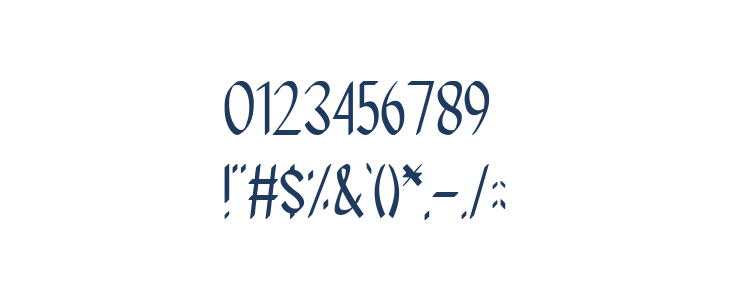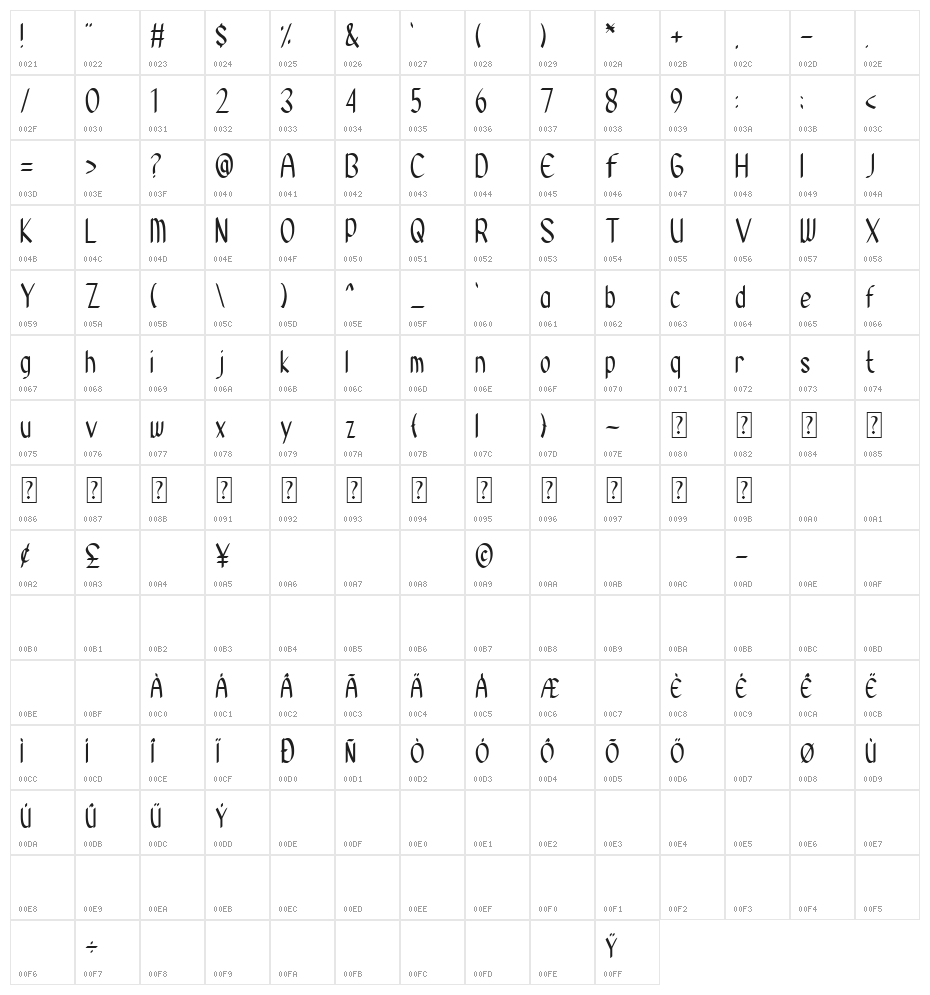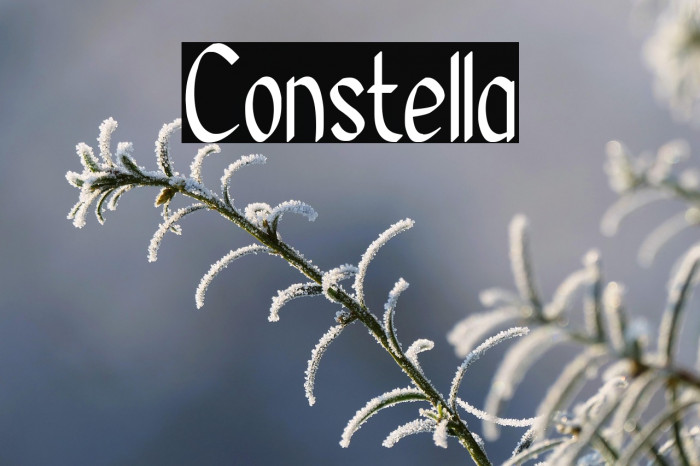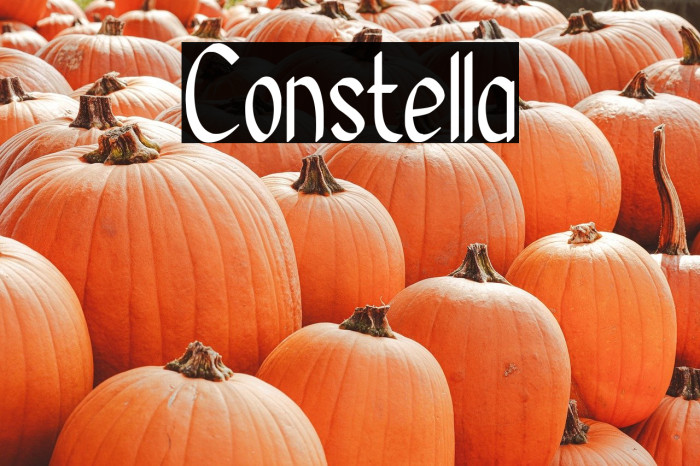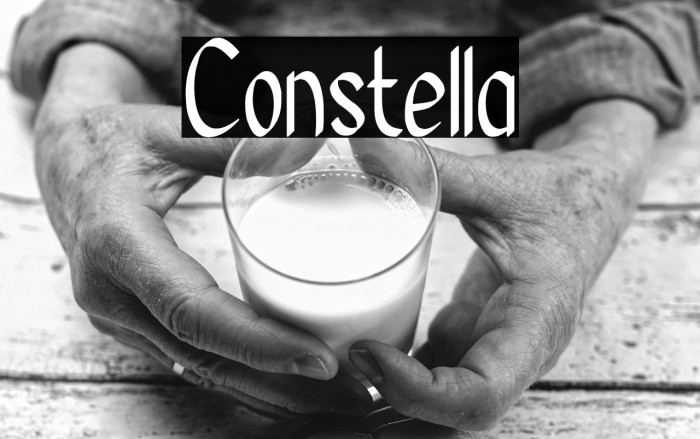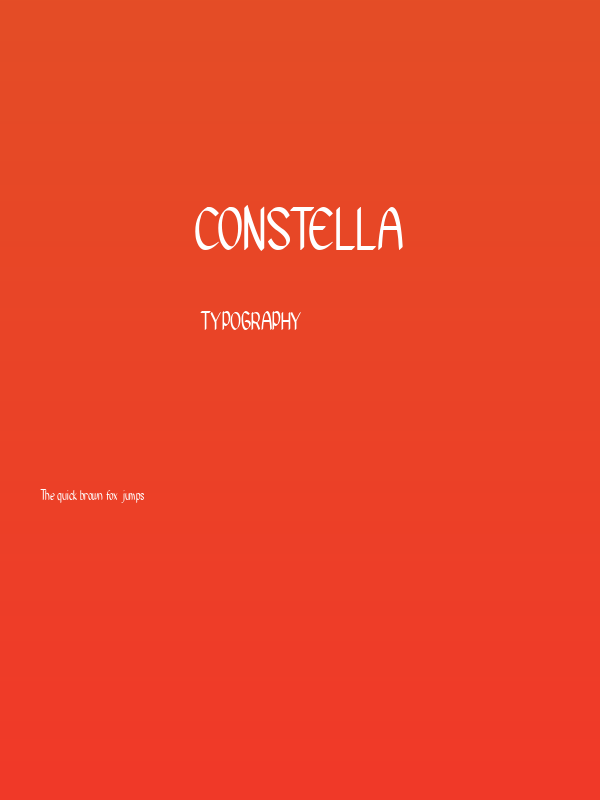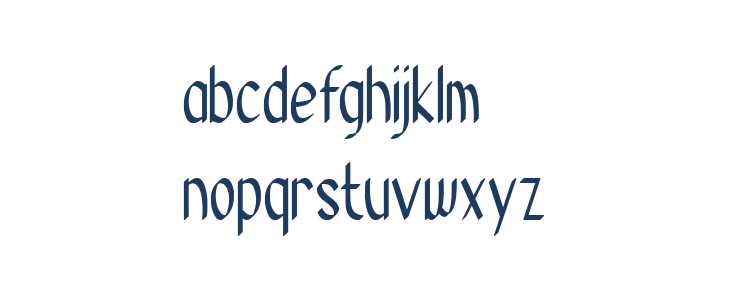
Constella Font
Constella Description
This font features a unique and artistic design with elongated and slightly curved strokes, giving it a whimsical and playful appearance. The uppercase letters are tall and narrow, while the lowercase letters maintain a consistent style with a slightly more compact form. The numbers are distinct and align well with the overall aesthetic. Special characters are creatively integrated, maintaining the font's artistic flair. The font's style is both modern and decorative, making it suitable for creative projects that require a touch of elegance and individuality.
| Width | Condensed |
| Overall Style | Modern, Decorative |
| Use Case | Headlines, Logos, Artistic designs |
| Proposed Projects | Ideal for creative projects such as invitations, posters, branding, and artistic designs that require a unique and decorative touch. |